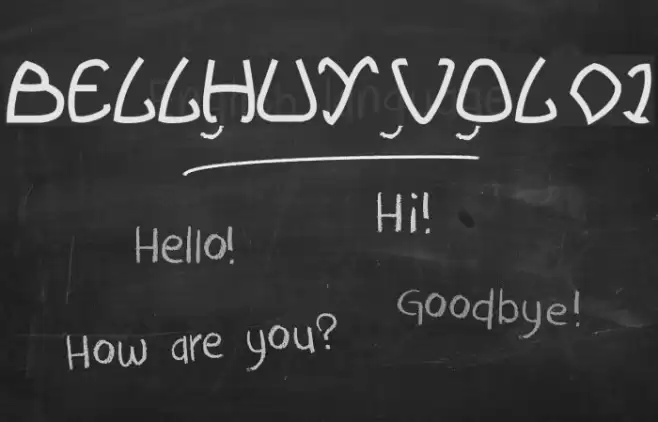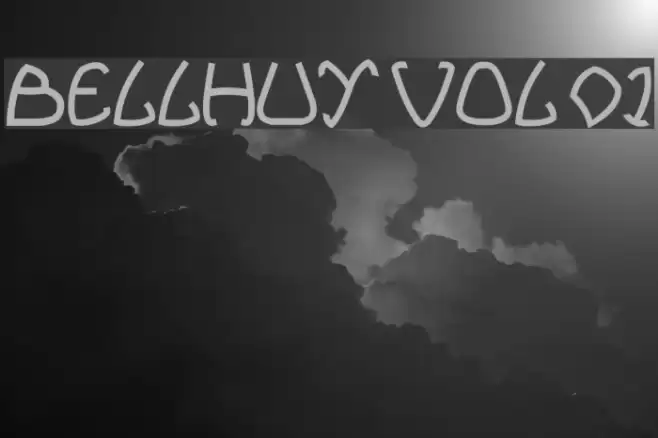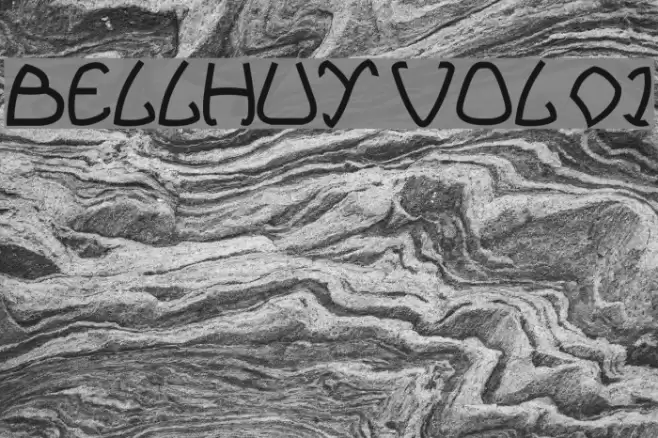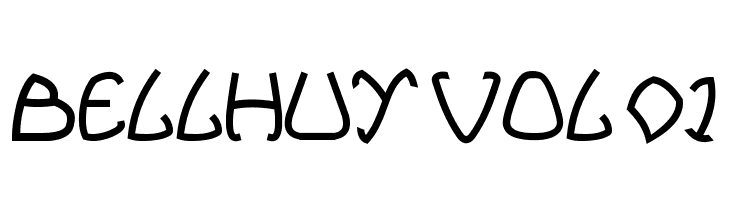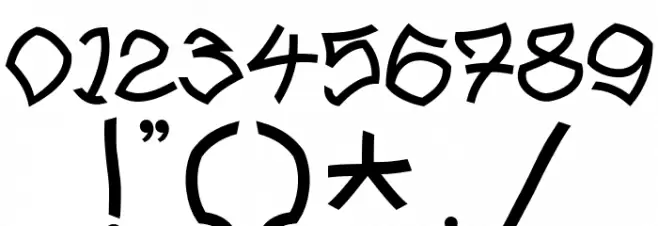
Bellhuy vol 01 Font
Bellhuy vol 01 Description
This font features a unique and artistic style with a playful and slightly irregular design. The characters have a hand-drawn appearance, with varying stroke thicknesses that add a dynamic and lively feel. The uppercase and lowercase letters maintain a consistent style, with some characters featuring distinctive flourishes and curves. The numbers and special characters follow the same whimsical design, making the font suitable for creative and informal projects. The overall aesthetic is both modern and decorative, with a touch of vintage charm.
A playful, hand-drawn font with dynamic strokes and a whimsical style from Fancy fonts.
- Font: Bellhuy vol 01
- Proposed Projects: Ideal for children's books, creative posters, playful branding, and artistic invitations.